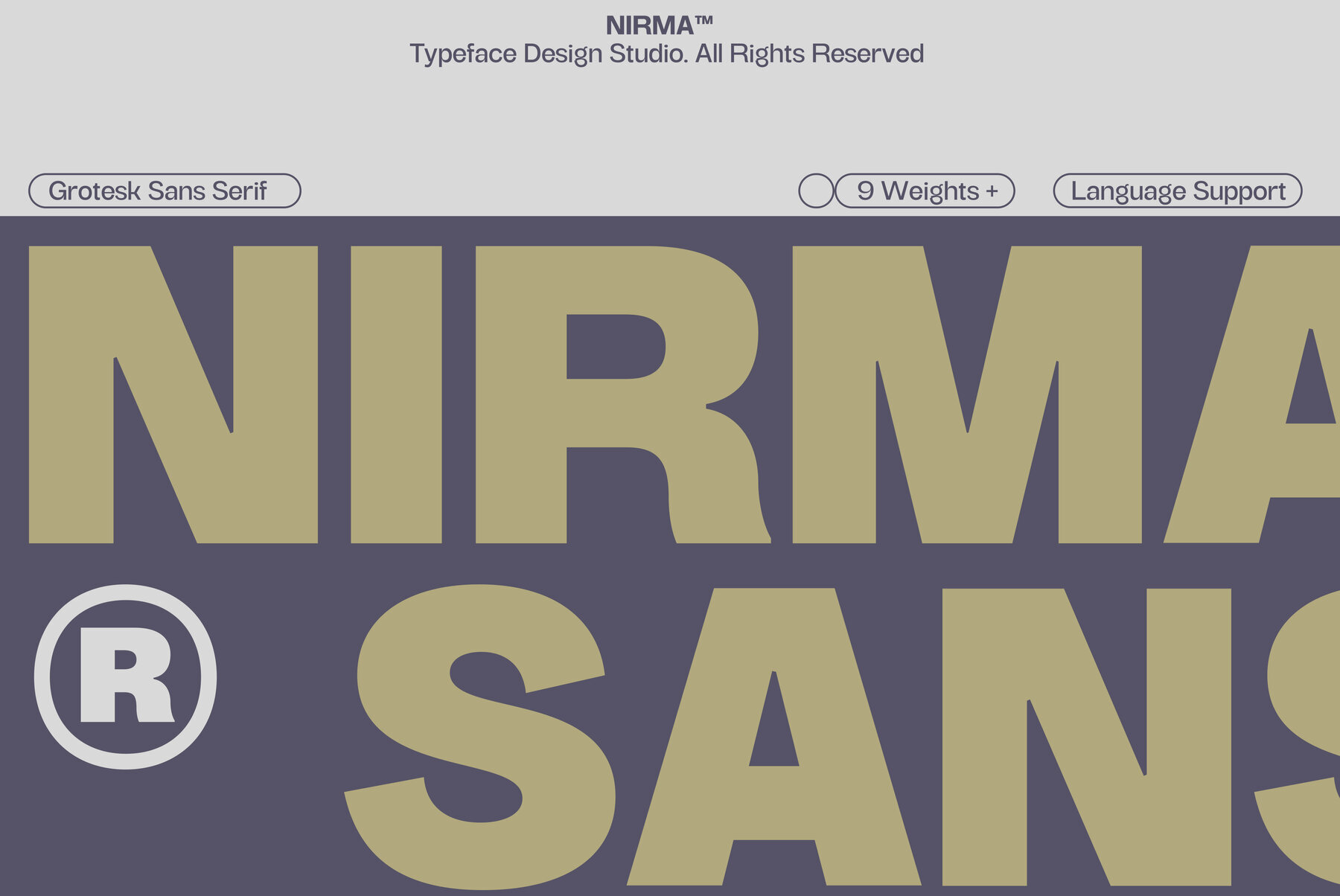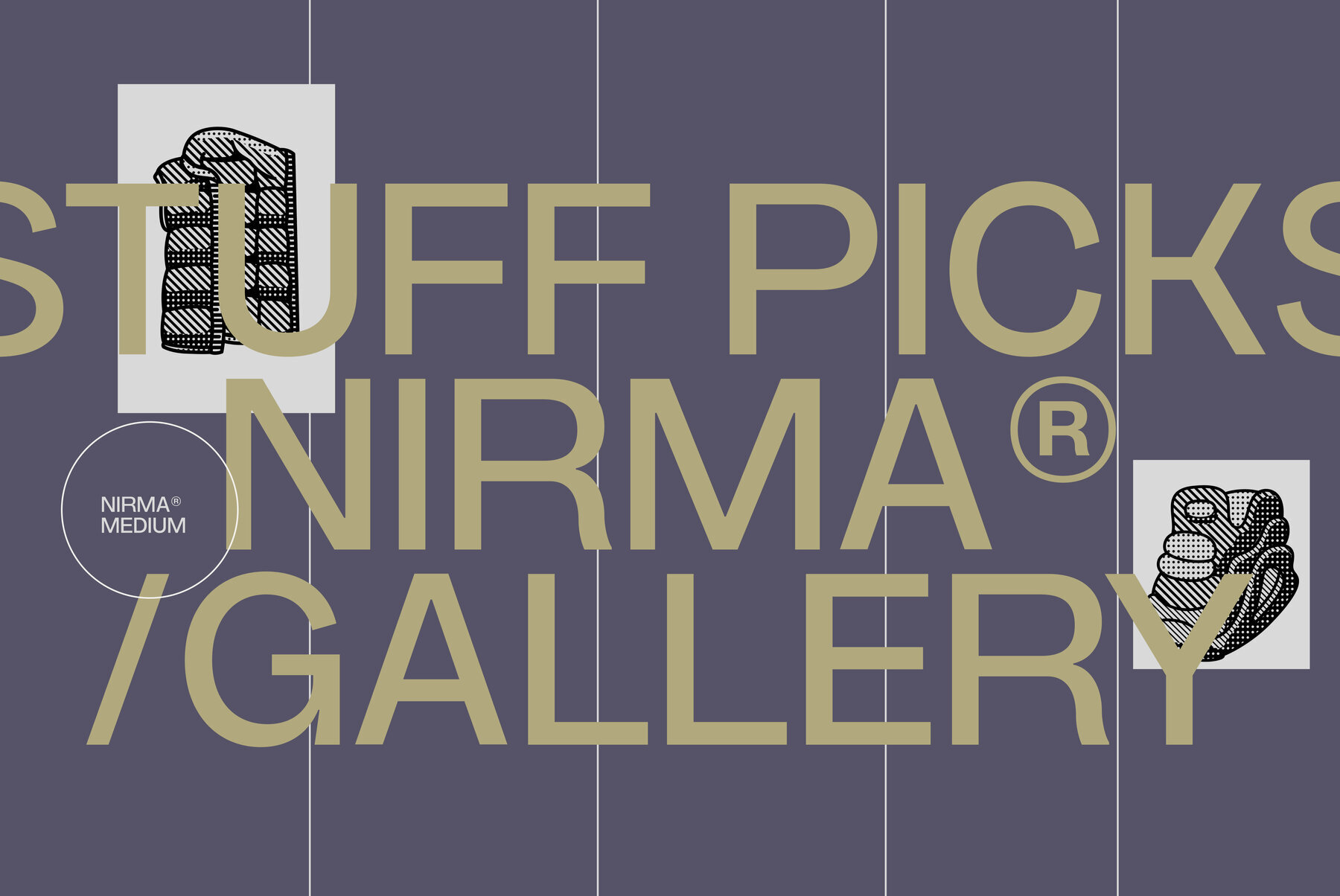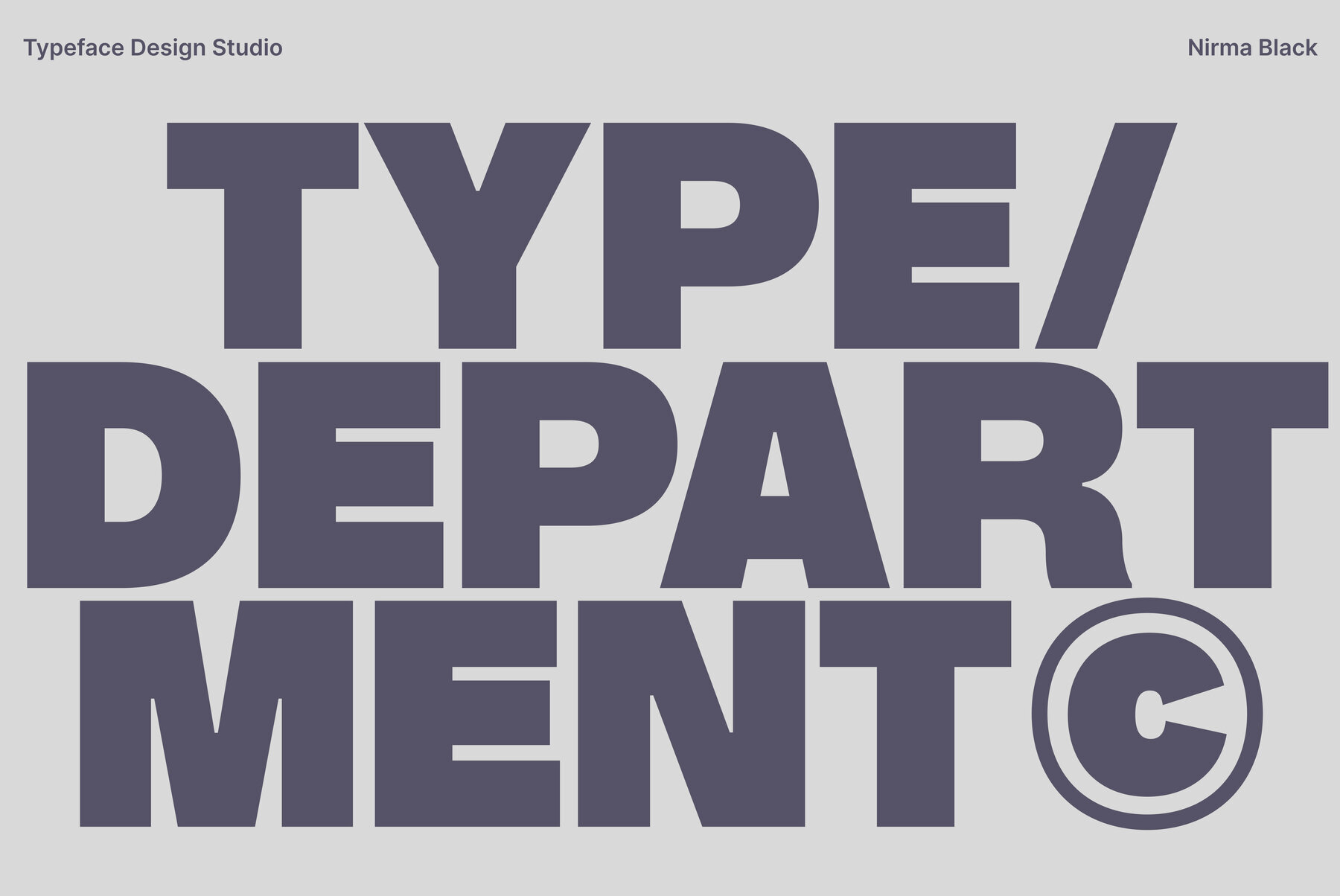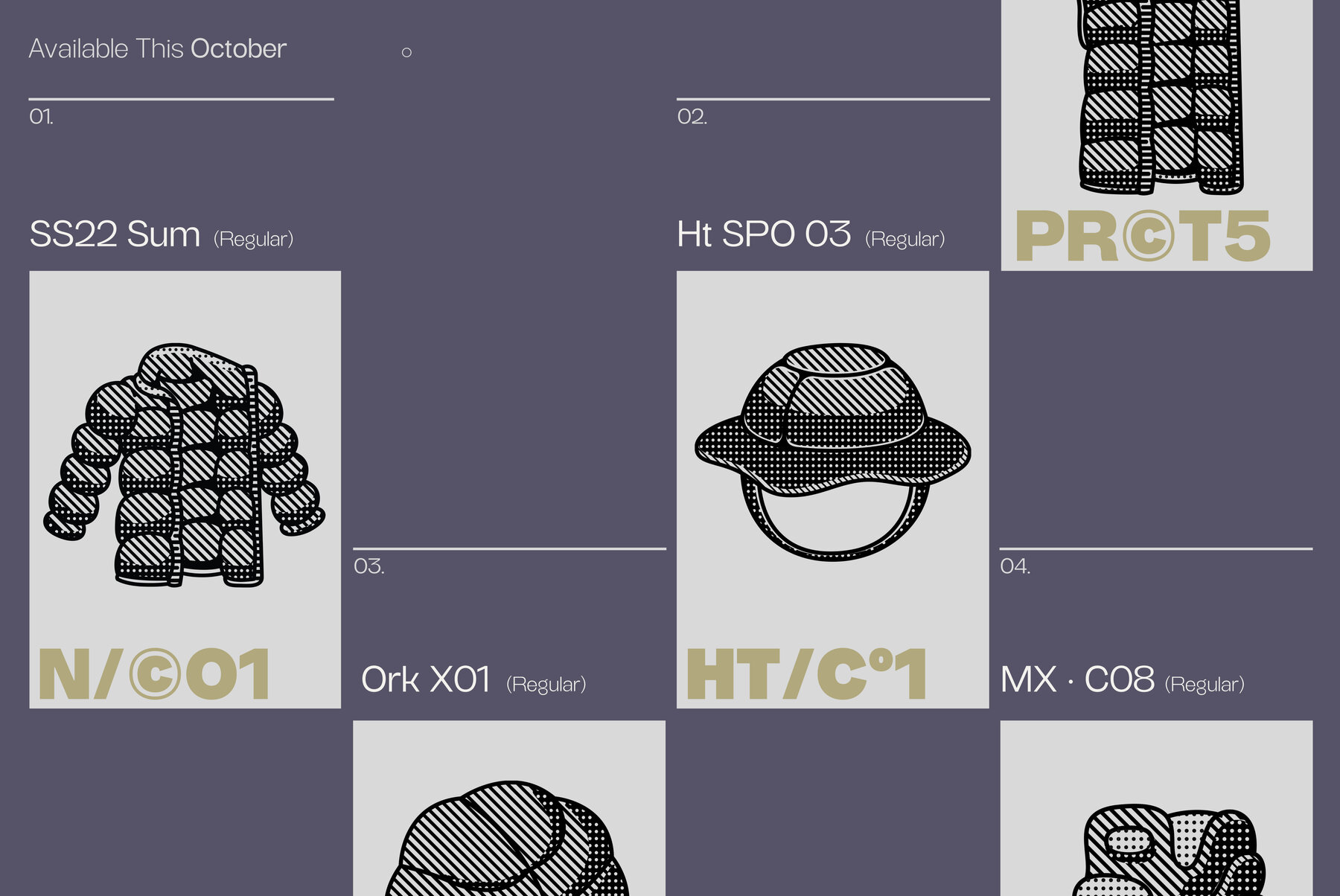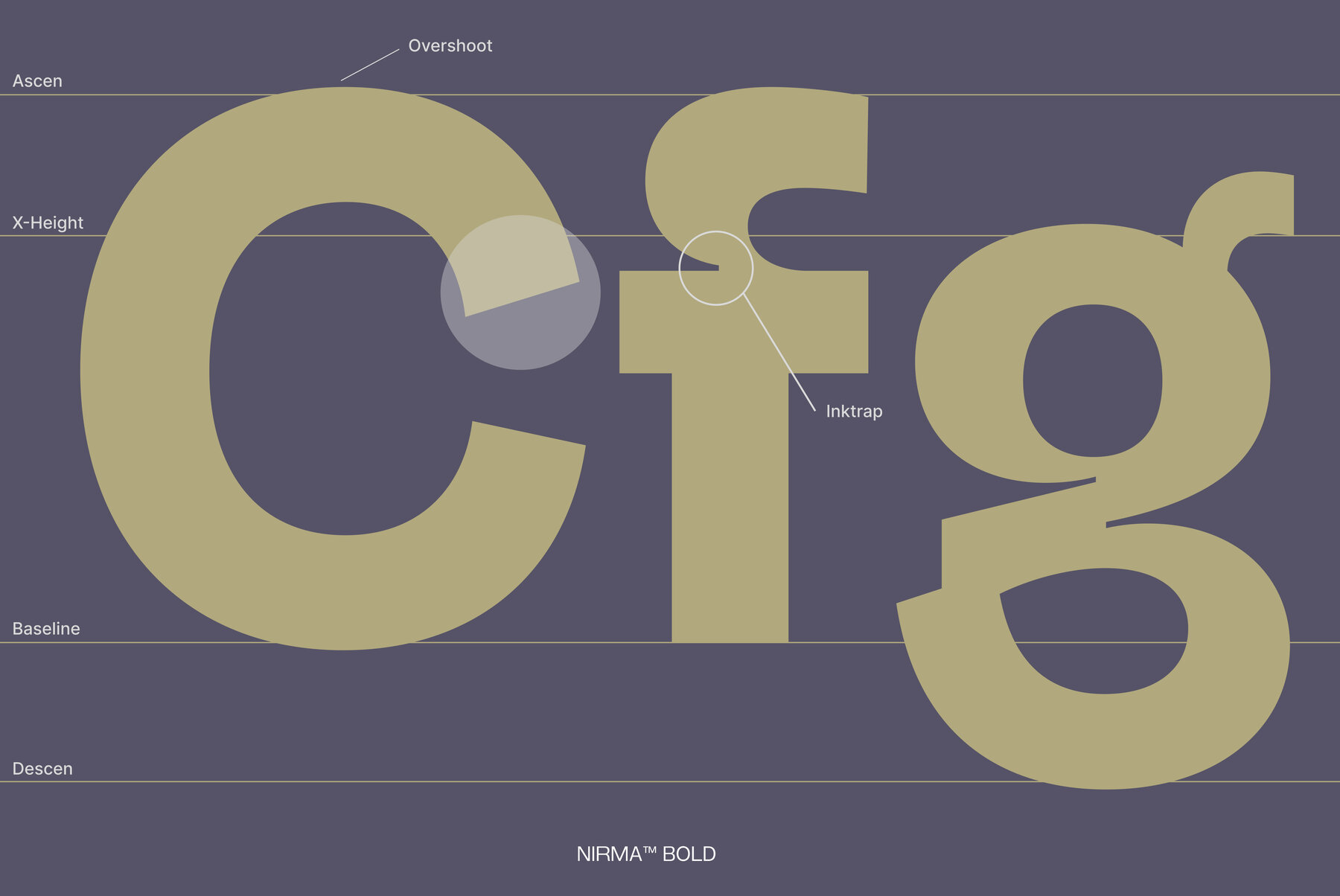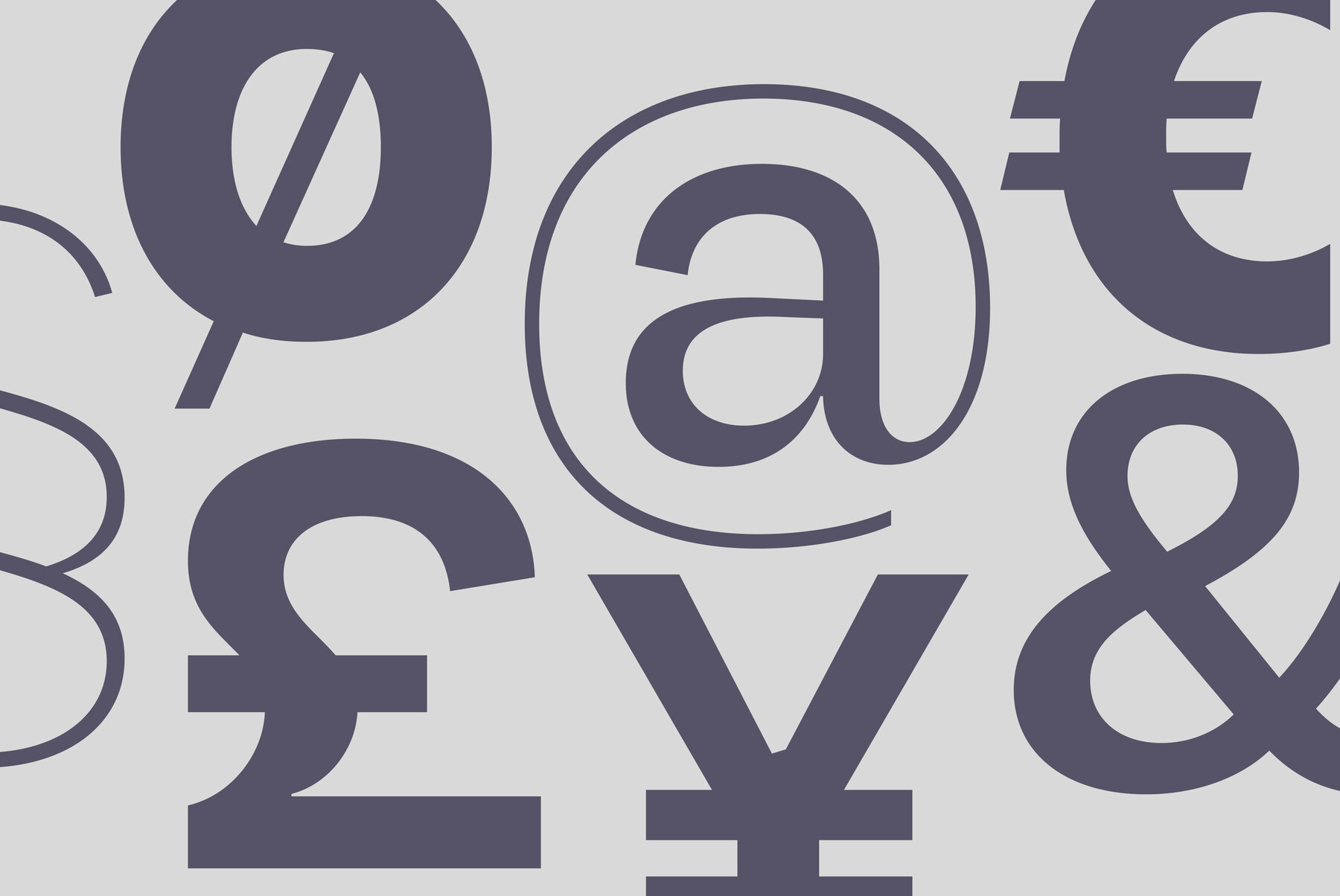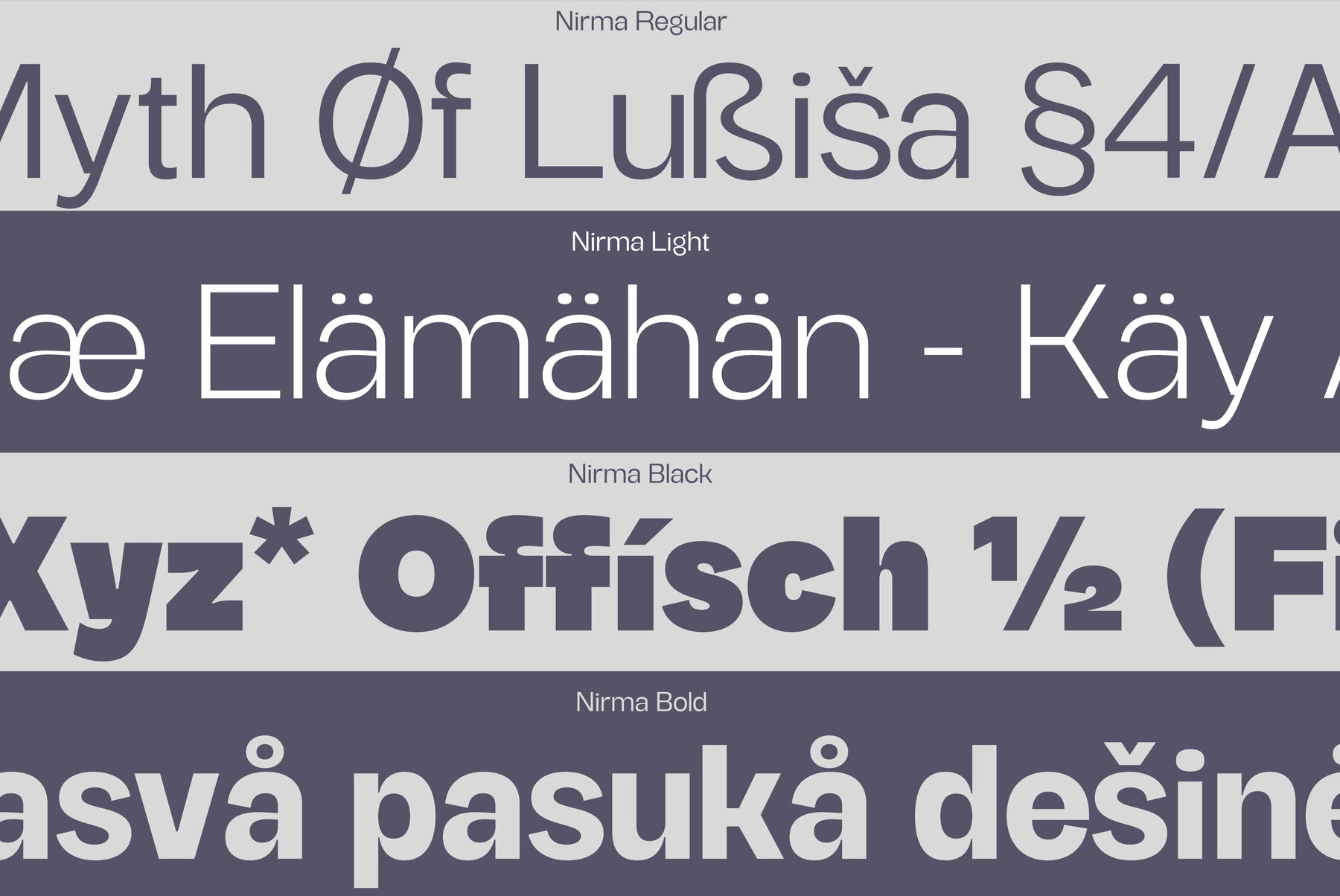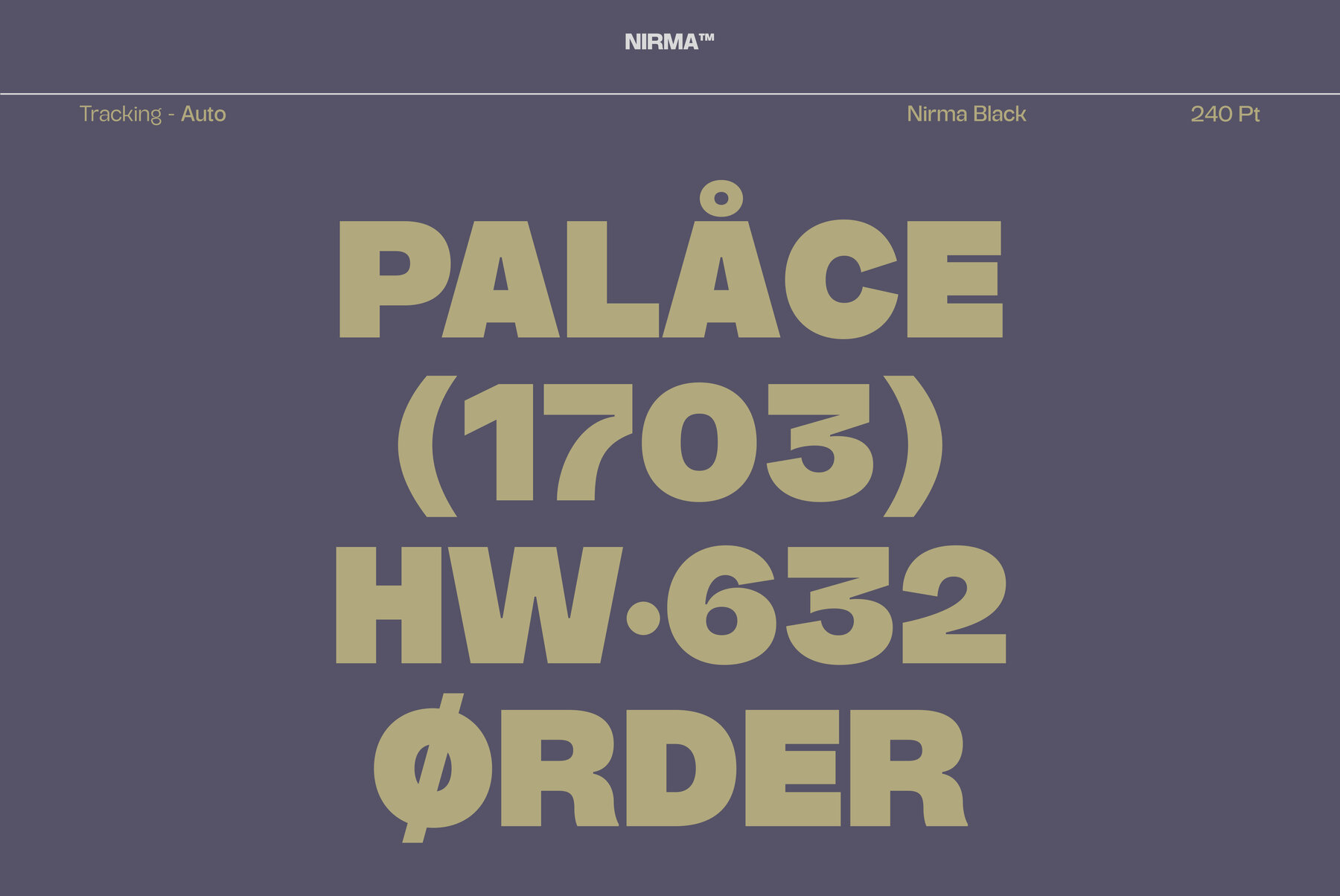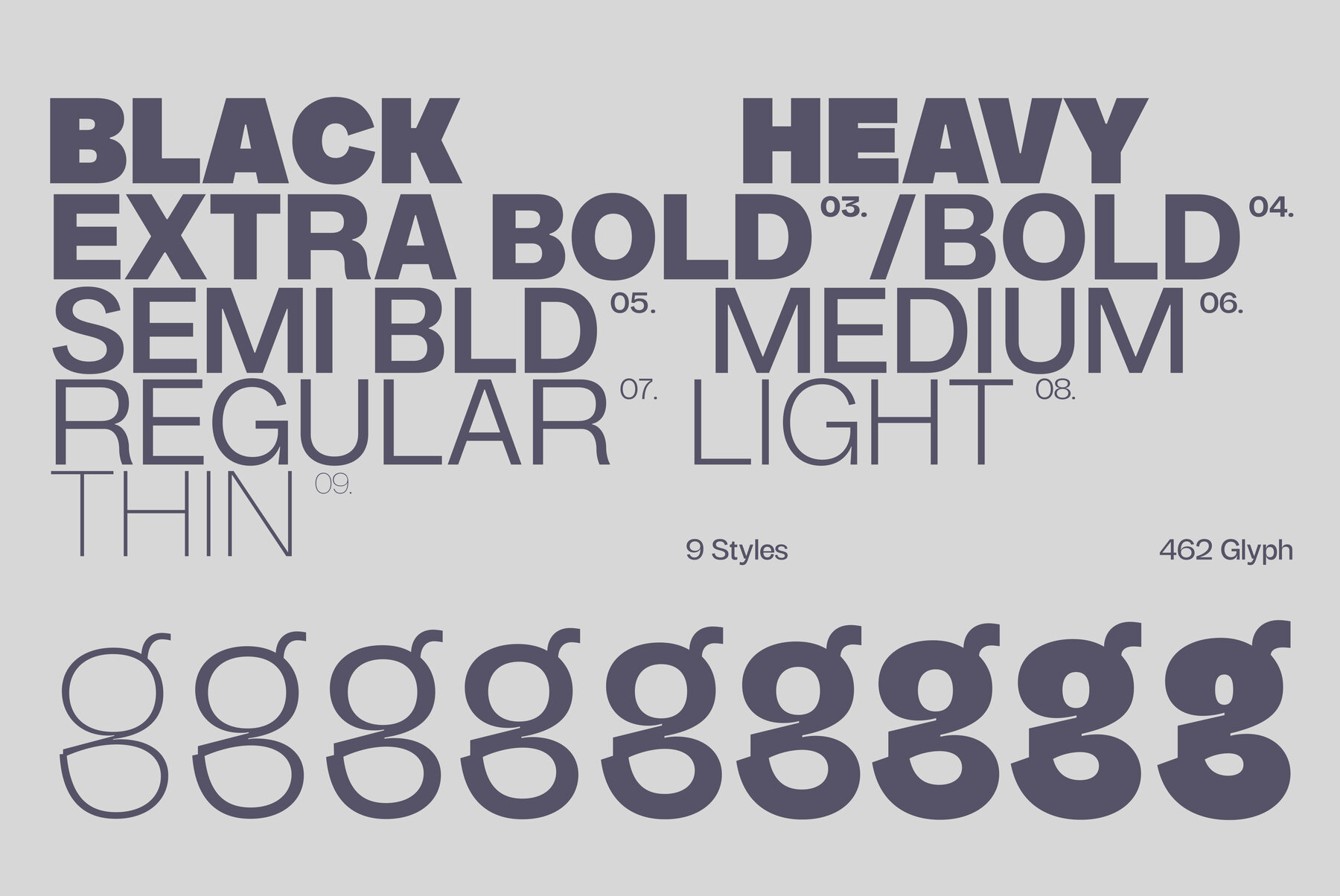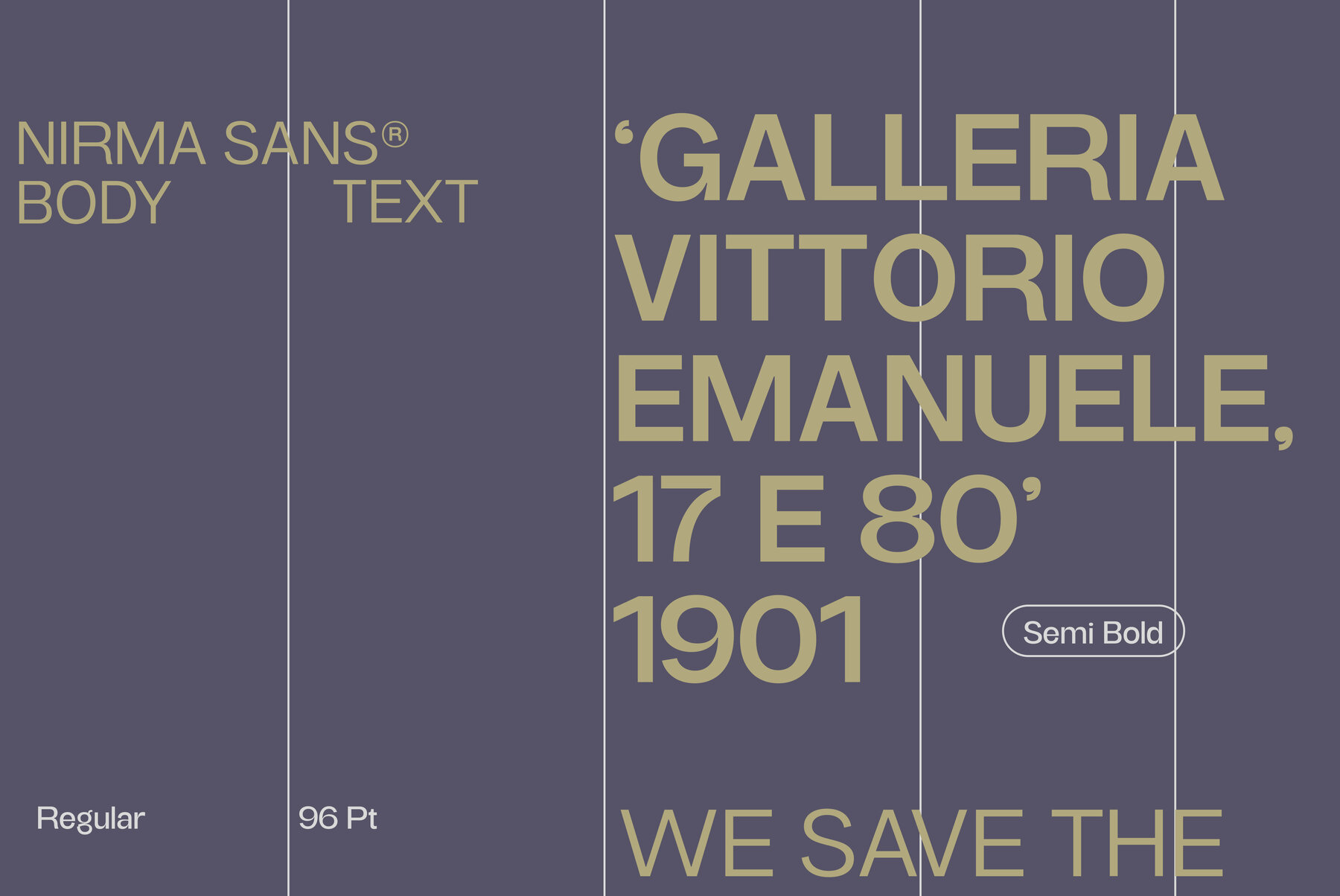
Nirma Font
The Nirma typeface delivers an expansive versatility with its collection of nine weights, from Thin to Black, adeptly suited to a broad spectrum of design applications. Carefully designed to accommodate a range of creative needs, it offers bold weights that excel in display contexts and thinner weights that ensure clarity and readability in body text. With a remarkable tally of 462 glyphs, Nirma extends its support to an impressive range of 218 languages, encompassing Latin Basic, Latin-1 Supplement, Latin Extended A-B, Spacing Modifier Letters, and Combining Diacritical Marks. This linguistic versatility makes it an outstanding choice both for eye-catching display and for maintaining elegance and legibility in text-heavy documents. Whether utilized for its commanding Black weight in display work or its Thin through Regular weights in textual projects, Nirma is an indispensable tool for any design professional's toolkit.Nirma Typeface: Modern Versatility in Nine Weights